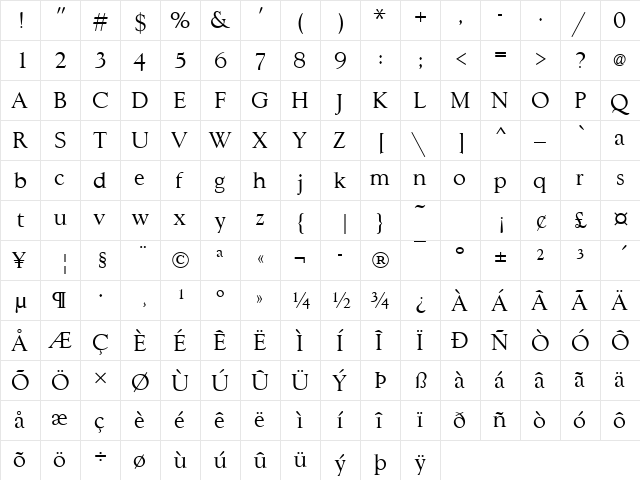
GoudyT Regular
Design Context for GoudyT Typeface
GoudyT is a composed and adaptable typeface that performs quietly and consistently across a wide range of design contexts.